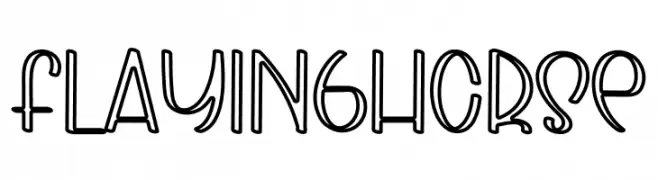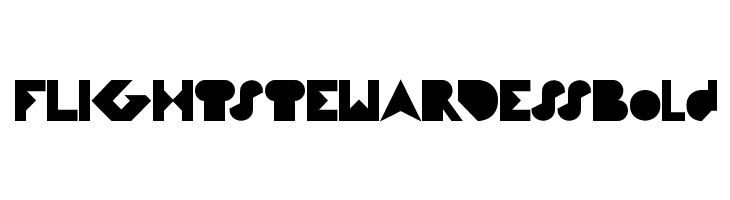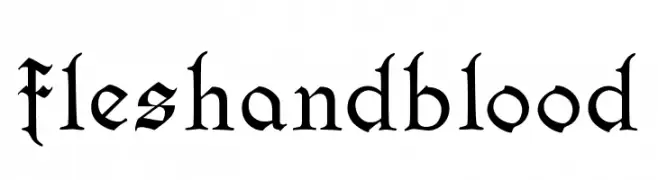
A bold, playful font with curly, decorative elements.
A bold, italicized decorative font with playful curves and swirls.
A whimsical, cursive font with elegant curves and decorative flourishes.
A whimsical, hollow font with smooth curves and playful style.
A hollow, inverse font with flowing, cursive-like characters and consistent stroke width.
An artistic, cursive font with smooth curves and a whimsical flair.
A playful, outlined font with whimsical curves and decorative elements.
A dramatic, gothic-style font with sharp serifs and elegant curves.
A geometric, futuristic font with bold, angular lines and intricate patterns.
A bold, geometric font with a futuristic and edgy style.